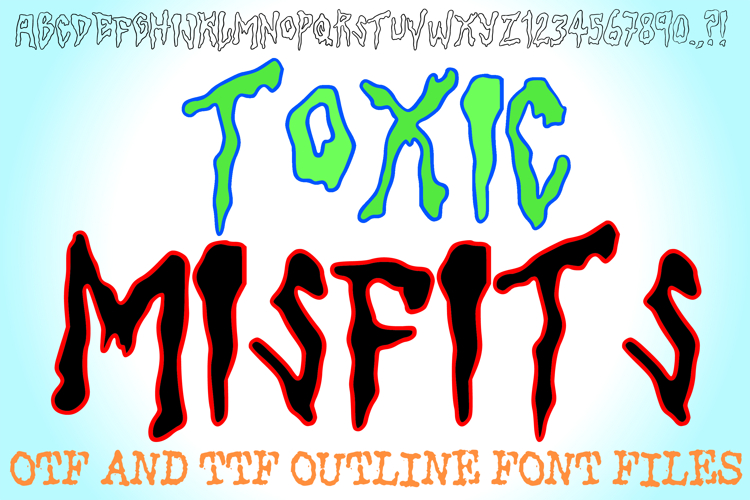
The Toxic Misfits Font is a rebellious, ultra-warped display typeface that captures a thrilling, radio-active sludge aesthetic. Defined by its dramatically elongated proportions and heavy, fluid drips pooling from the base of each letter, this typeface is a premier choice for designers working on edgy streetwear apparel, punk music festival flyers, spooky Halloween graphics, and eye-catching sticker designs.
The design masterfully channels a spooky, B-movie horror vibe where the characters appear to be melting and shifting under immense heat or chemical reaction. Its fluid, melting forms stretch downward with an organic momentum, injecting a striking counter-culture energy into any layout. Whether you are crafting high-impact headings for a skate brand or designing bold title graphics for a gaming channel, this font stands out with an unmistakable, unpolished edge.
Why Your Designs Will Stand Out
Elongated Sludge Drips: Heavy, gravity-defying drips cascade from the bottom of each character, adding an immediate layer of melting texture and movement.
Warped Liquid Distortion: The fluid, asymmetrical stretching of the letterforms creates a chaotic, high-energy rhythm that instantly commands attention.
Bold High-Contrast Outlines: Thick hand-drawn perimeters provide massive visual weight, ensuring the text remains highly readable against busy or vivid backgrounds.
Edgy Alternative Attitude: Perfectly tailored for projects needing a gritty, non-conformist aesthetic—from neon counter-culture branding to classic horror themes.